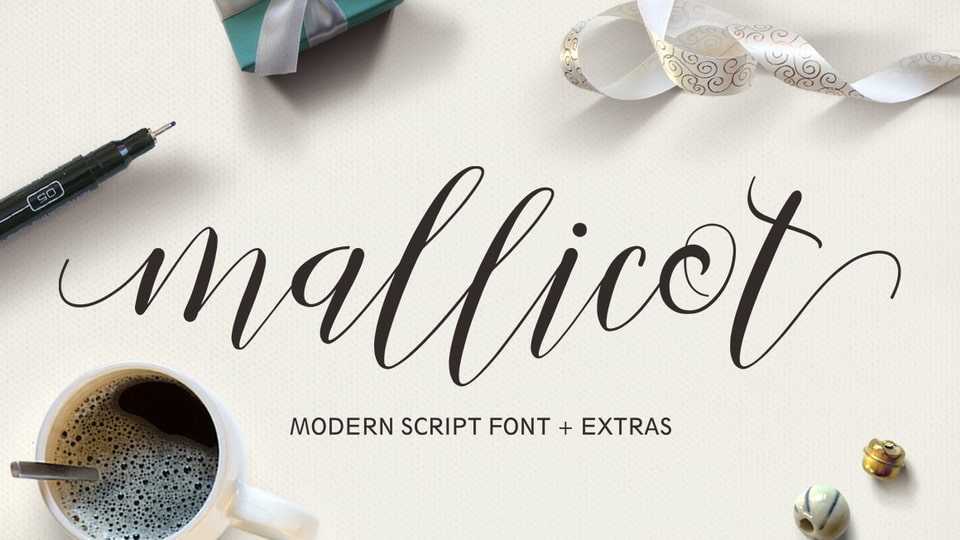
Download Mallicot font, a lovely script with a modern charm. It features dynamic and pretty swashes and can be used for many purposes, such as titles, signatures, logos and so on.